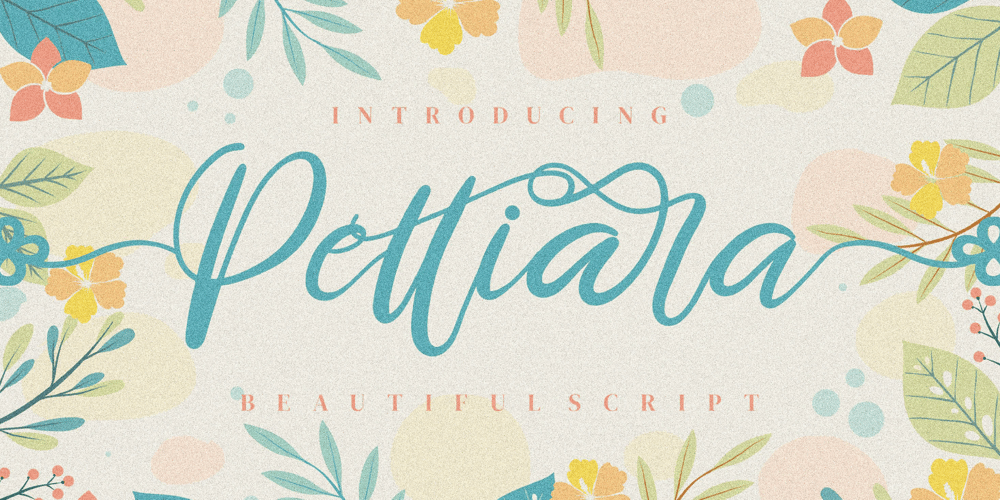
Pettiara Font Family was designed by Dimas Alif Maulana and published by Integritype. Pettiara contains 2 styles and family package options. Pettiara is an enchanting handwritten font. This versatile script font has a wide spectrum of applications ranging from greeting cards to headlines and is guaranteed to add a romantic feel to your next project.This font is PUA encoded which means you can access all of the beautiful glyphs and swashes with ease!